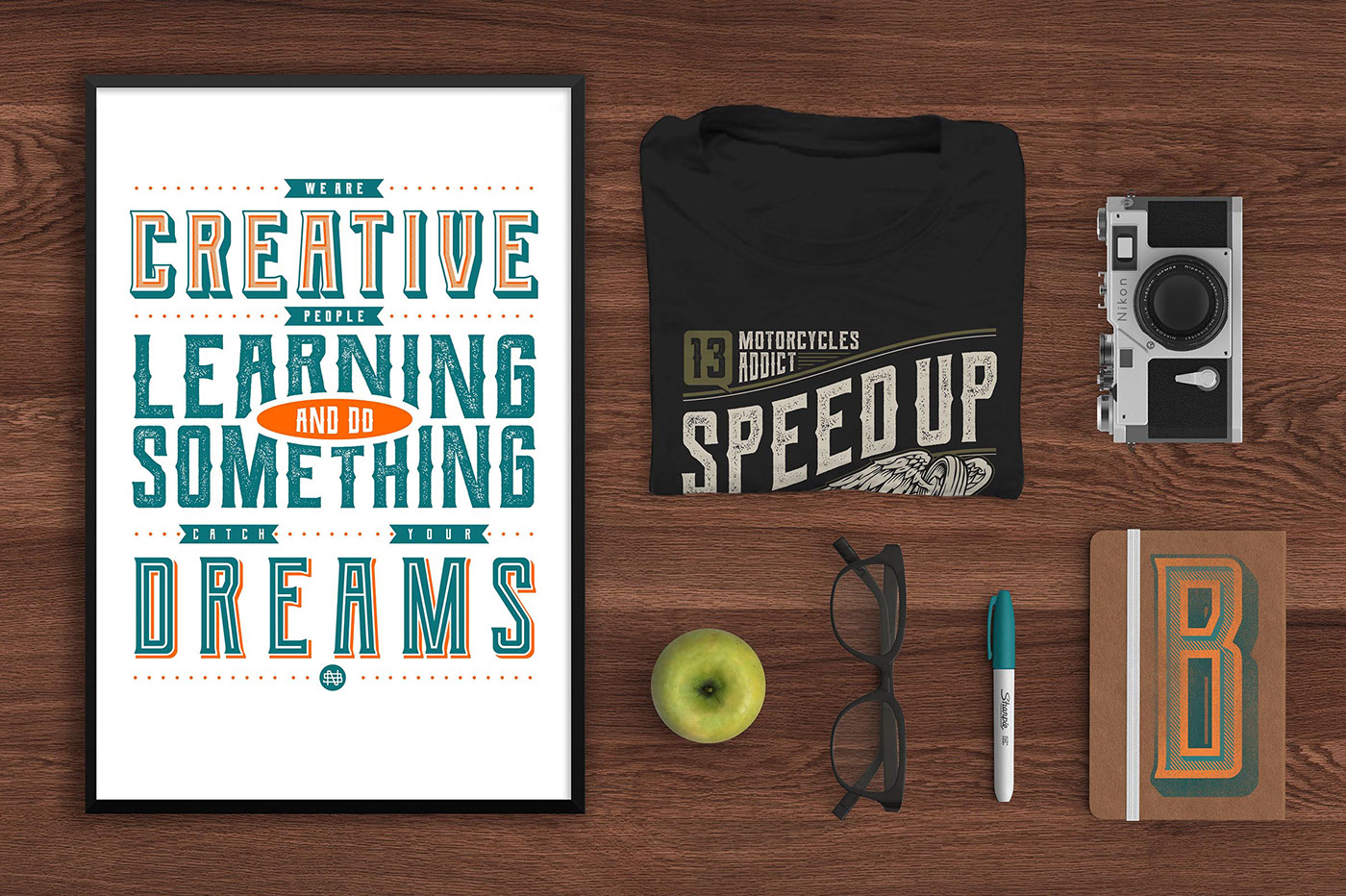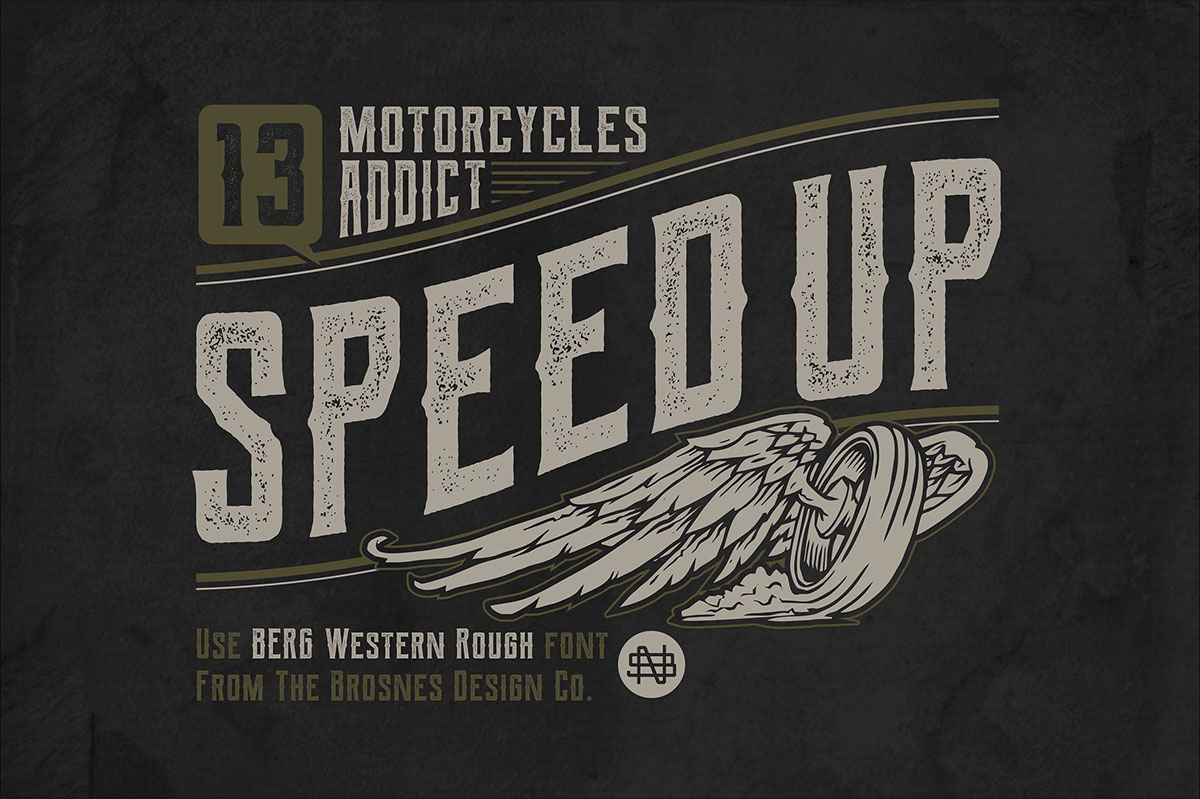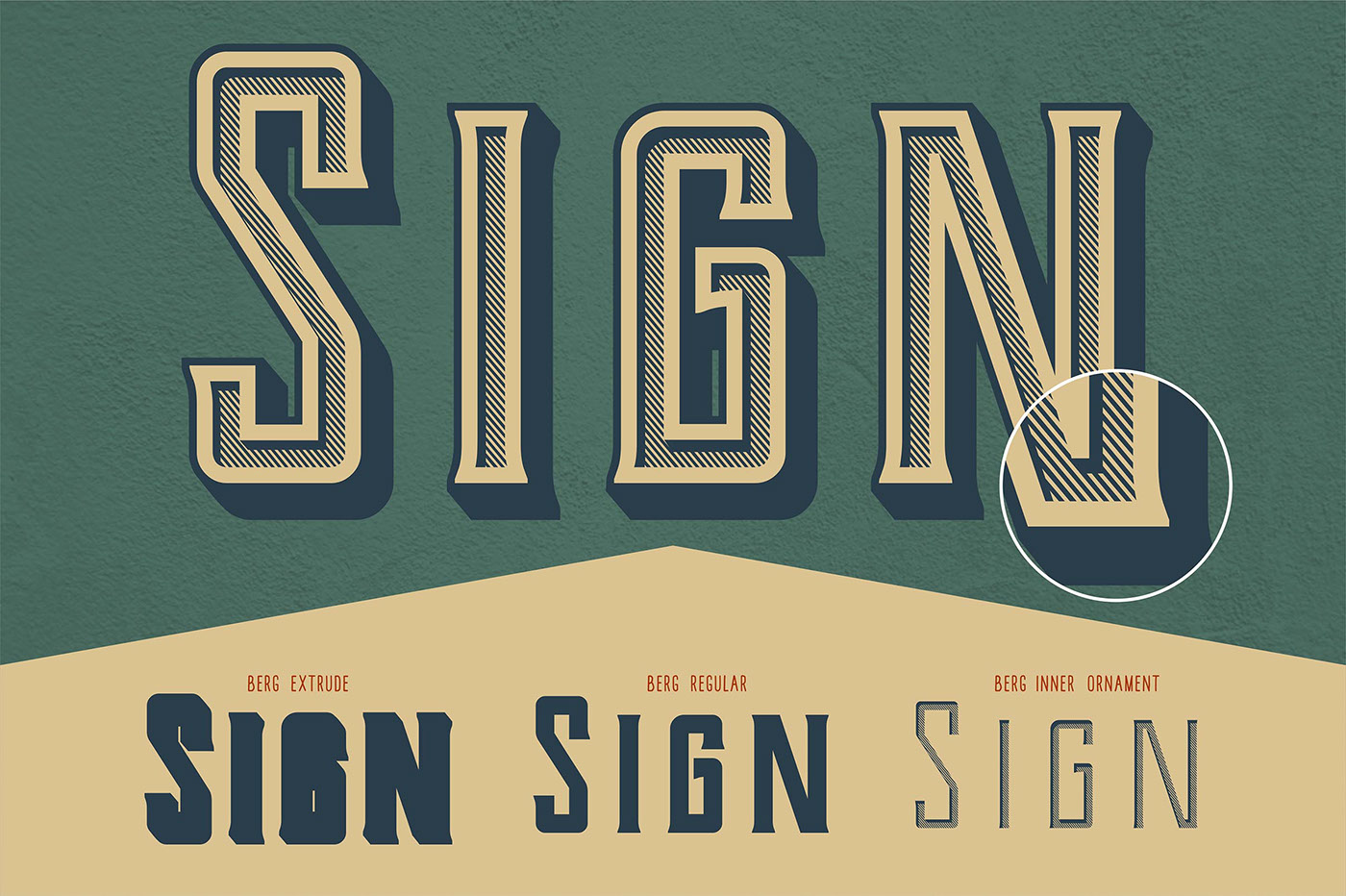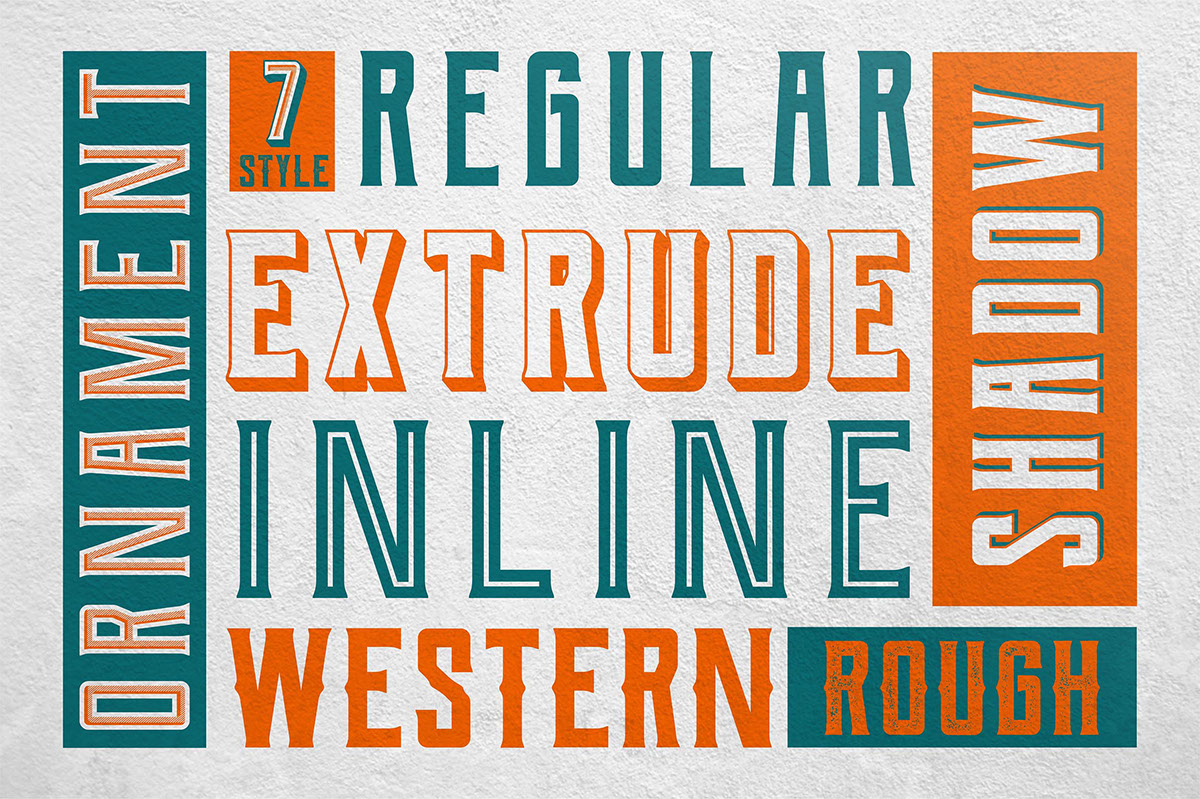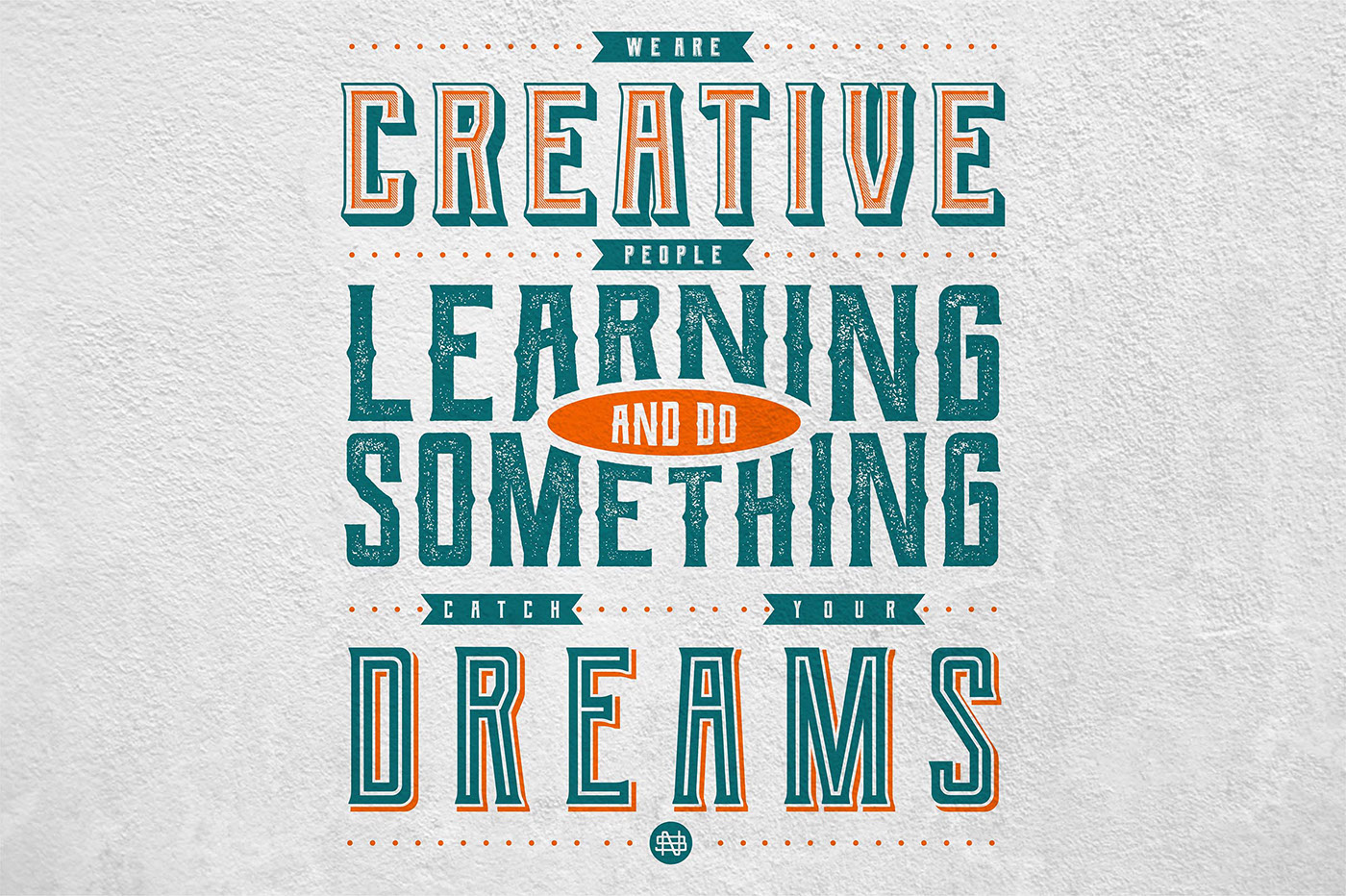
Designed by THE BROSNES Design Co. Berg is a strong layered font family (Regular, Extrude, Inline, Shadow, Ornament, Western & Rough). It was inspired by vintage sign painting, labels and posters. Includes a full set of capital and lowercase letters, as well as multi-lingual support, currency figures, numerals, and punctuation. Berg is perfect for branding, logos, posters, packaging designs, book covers and more! Free for personal & commercial use.